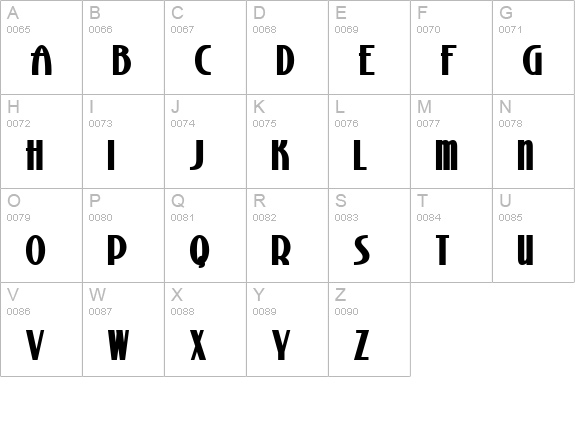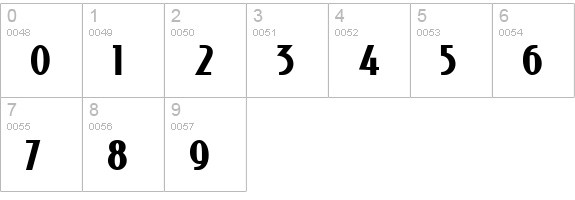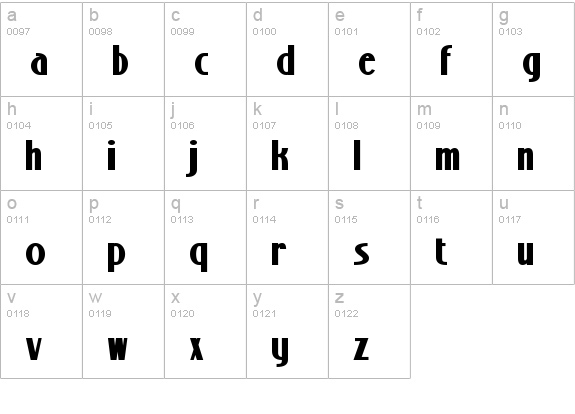
Stony Island NF Bold Font Details
Stony Island NF Bold is a strong, high-contrast variant in the Stony typeface family \xE2\x80\x94 well suited to headlines, attention-grabbing titles, and strong calls-to-action.
Stony Island NF Bold font is a versatile and modern typeface that exudes a sense of strength and sophistication. Its bold and impactful design makes it perfect for headlines, titles, and other attention-grabbing text. The sturdy and solid letterforms of Stony Island NF Bold convey a sense of stability and reliability, making it an ideal choice for projects that require a strong visual presence. This font is freely available to download at FontsMarket.com, allowing designers and creatives to easily access and use it in their projects without any restrictions. With its clean lines and bold appearance, Stony Island NF Bold font is sure to make a statement and elevate the overall design of any piece. Whether you're working on a branding project, advertising campaign, or any other creative endeavor, Stony Island NF Bold font is a fantastic choice that will help you achieve your desired look and feel.